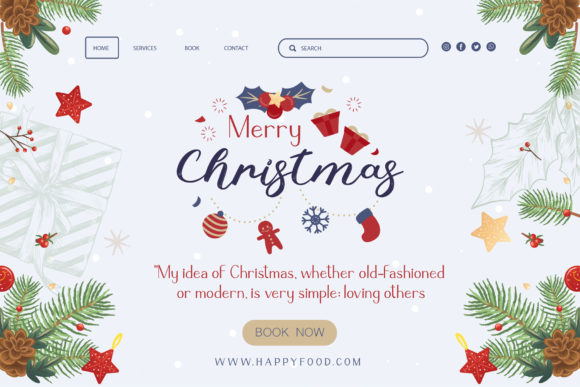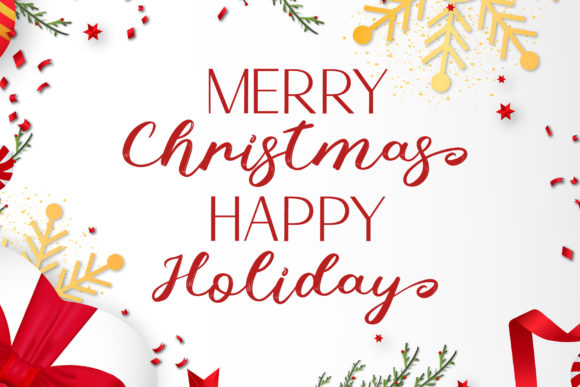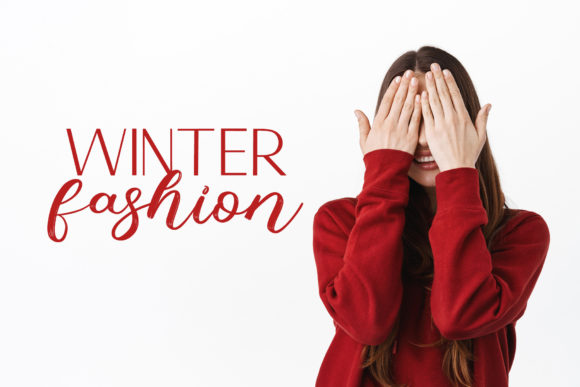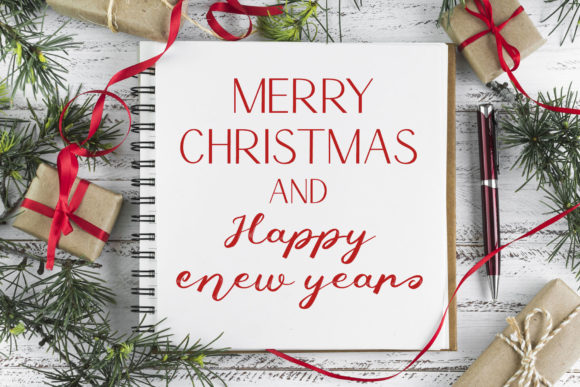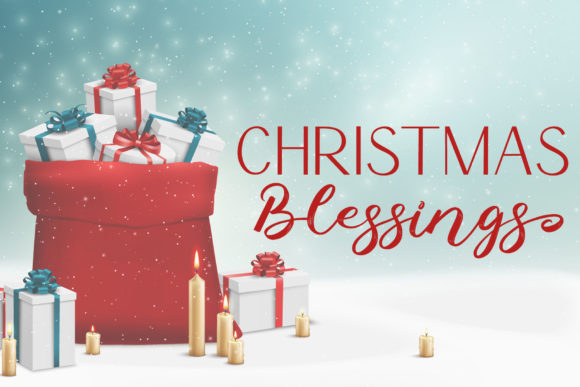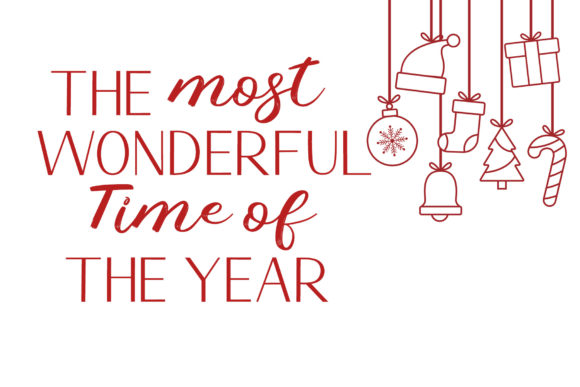
Deck the Halls with Holiday Cheer
It’s that magical time of the year again – the lights are twinkling, the tree is lit, and the design juices are flowing! You’re rummaging through your digital stash of fonts, searching for the perfect combination to give your holiday crafts that extra oomph. And then, it hits you – the perfect pair to make your designs merry and bright.
Enter the Christmas Combine Font, a match made in heaven consisting of two complementary fonts designed to work in harmony. Whether you use them together or apart, these fonts are sure to add a chic and cheery touch to your crafts. With PUA encoding, you’ll have access to all the glyphs and swashes you need to create truly stunning designs.
Key Features of Christmas Combine Font
- Unique Characteristics: The Christmas Combine Font features a unique blend of traditional and modern design elements, including intricate ornaments, festive icons, and elegant typography.
Review of “Christmas Combine Font”
✨ The font’s playful combination of traditional Christmas elements is visually appealing and instantly conveys a festive atmosphere. The mix of bold and delicate elements works well together, creating a sense of depth and visual interest. The font is also highly customizable, allowing users to adjust its size, color, and style to suit their design needs.
✨ I also appreciate the wide range of characters and symbols available in the font, making it suitable for a variety of design projects, from greeting cards to social media posts.
⚠️ One of the main limitations of the font is its readability at smaller sizes. Some of the more intricate details can become difficult to decipher, making it less suitable for body text or large blocks of text.
⚠️ Additionally, the font’s bold and playful style can sometimes feel overwhelming or too loud, which may not be suitable for more subdued or minimalist designs.
Overall, I would recommend the “Christmas Combine Font” for designs that require a bold, festive, and eye-catching look. However, it’s essential to use it judiciously and balance its playfulness with other design elements to avoid overwhelming the viewer.
If you’re looking for a unique and attention-grabbing font for your holiday designs, the “Christmas Combine Font” is definitely worth considering.
- Wide range of characters and symbols
- Playful and visually appealing
- Suitable for greeting cards, social media, and other festive designs
Getting the Most Out of the Christmas Combine Font
Experiment with different font combinations to achieve a unique look.
Use the font in combination with other festive design elements, such as snowflakes, holly, and candy canes.
Adjust the font size and color to create contrast and visual interest.
Use the Christmas Combine Font for:
Christmas card designs.
Holiday party invitations.
Festive social media graphics.
Christmas-themed presentations and documents.